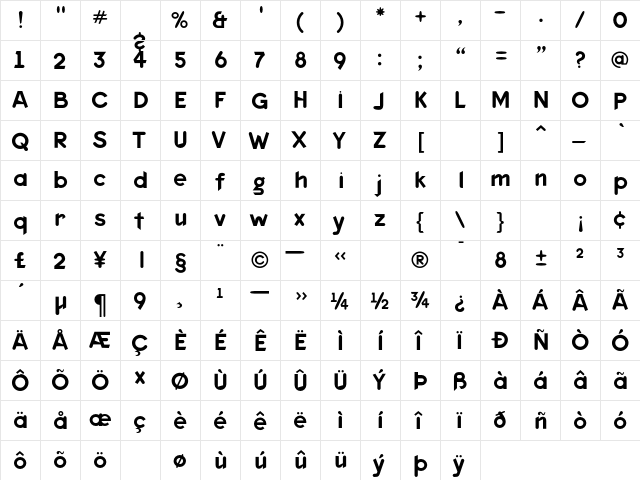
KeedySansReg Roman
Design Context for KeedySansReg Typeface
KeedySansReg is a composed and adaptable typeface that performs quietly and consistently across a wide range of design contexts.